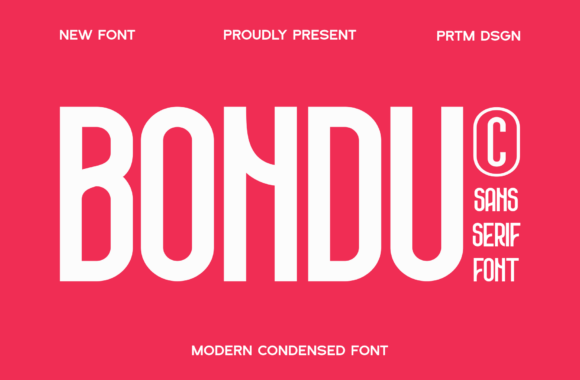
The Power of Bondu Font: Elevate Your Designs with Bold Efficiency
I’ll never forget the design project that pushed me to discover the Bondu font. I was working on a sleek, modern corporate identity for a tech startup, and my client requested a bold, attention-grabbing headline that would make their brand stand out. I scoured the internet for the perfect font, but nothing seemed to fit the bill – until I stumbled upon Bondu. Its ultra-condensed proportions and clean, sharp terminals immediately caught my eye, and I knew I had found the perfect solution.
An Honest Review of Bondu Font
- ✨ Bold and efficient: Bondu font is designed for impact, making it perfect for movie posters, editorial headlines, and tech-focused branding.
- ✅ Exceptional legibility: Its heavy weight and tall x-height make it exceptionally legible, even in digital hero sections and social media banners.
- 💡 Versatile: Bondu is suitable for a wide range of design projects, from modern corporate identities to sleek streetwear logos.
- 🎉 Easy to pair: Bondu looks amazing when paired with a wide-tracked light sans-serif, creating a sophisticated visual contrast in your layouts.
While Bondu is an amazing font, there are a few things to keep in mind:
- 🤔 Limited use cases for body text: Due to its ultra-condensed proportions, Bondu is best suited for headlines and titles rather than body text.
- ⚠️ Requires careful kerning: As with any font, it’s essential to adjust the kerning to ensure optimal readability, especially when using Bondu at smaller sizes.
The Story Behind Bondu Font
Bondu was designed with the contemporary designer in mind – someone who values bold efficiency and precision. The font’s creator, a renowned type designer, aimed to craft a typeface that would make a statement in the world of modern design. Inspired by the sleek lines and minimalist aesthetic of modern architecture, Bondu was born as a premier display face for the digital age.
| Font Name | Bondu Font |
| Author | Prtm Dsgn |
| What is the Bondu font best suited for? | Bondu is perfect for movie posters, editorial headlines, tech-focused branding, and any design project that requires a bold, attention-grabbing font. |
| Can I use Bondu for body text? | While Bondu is an amazing font, it’s best suited for headlines and titles rather than body text due to its ultra-condensed proportions. |